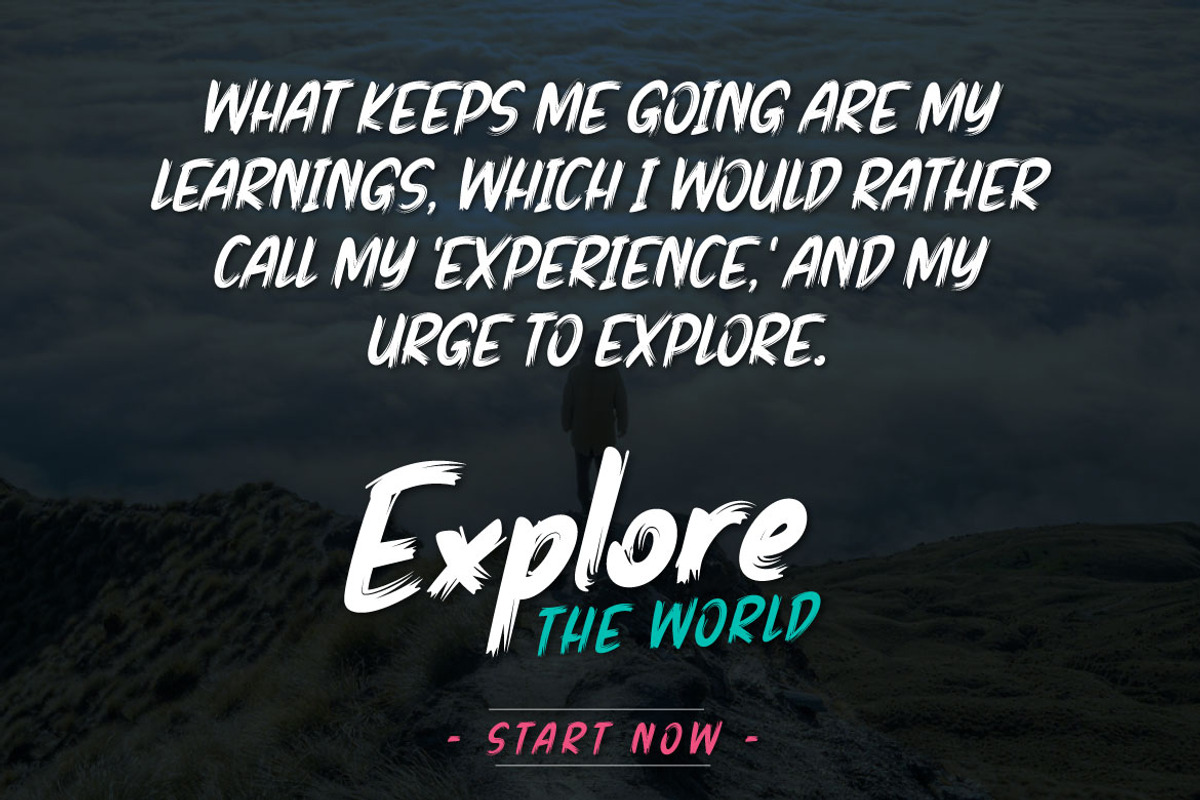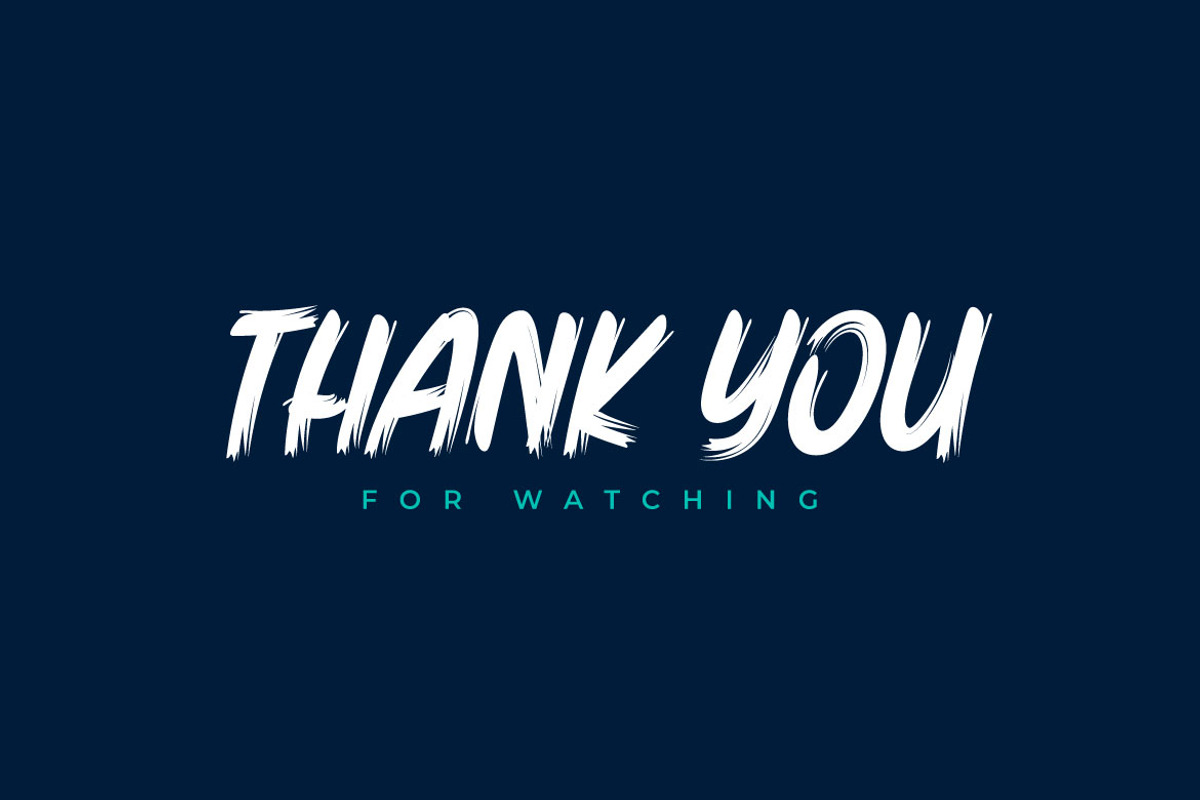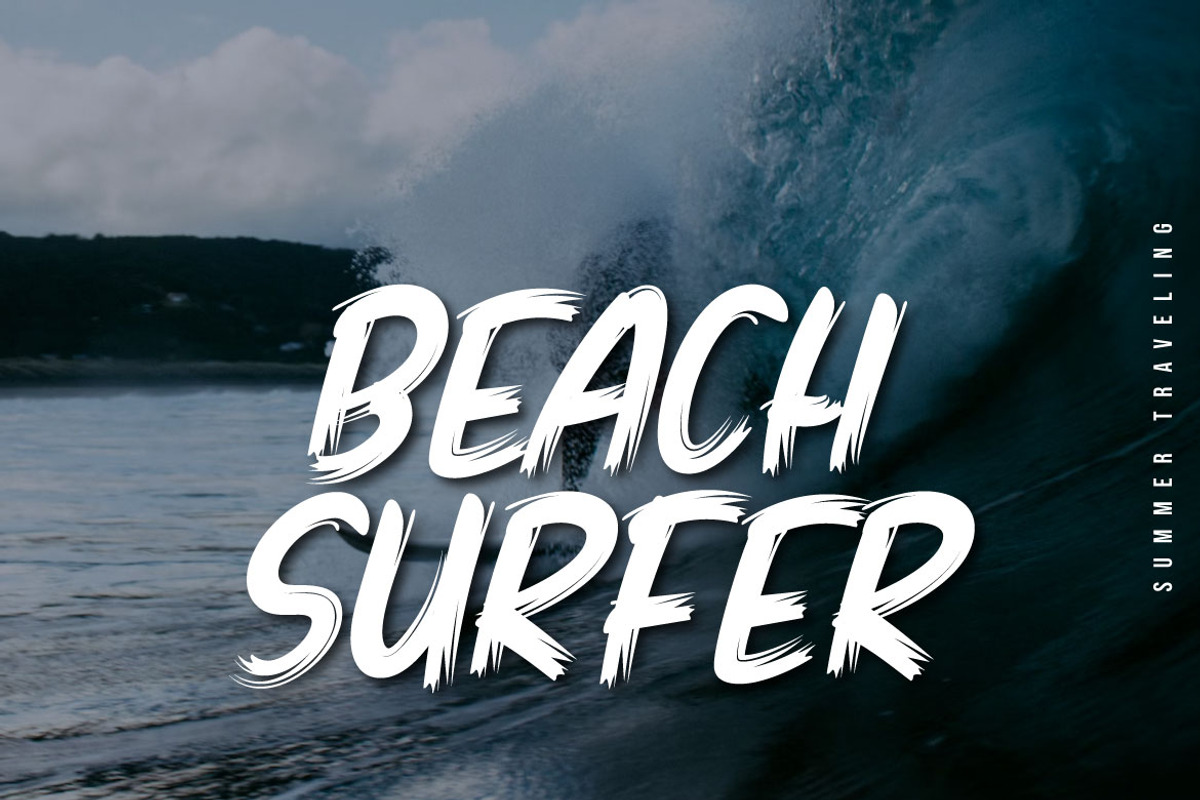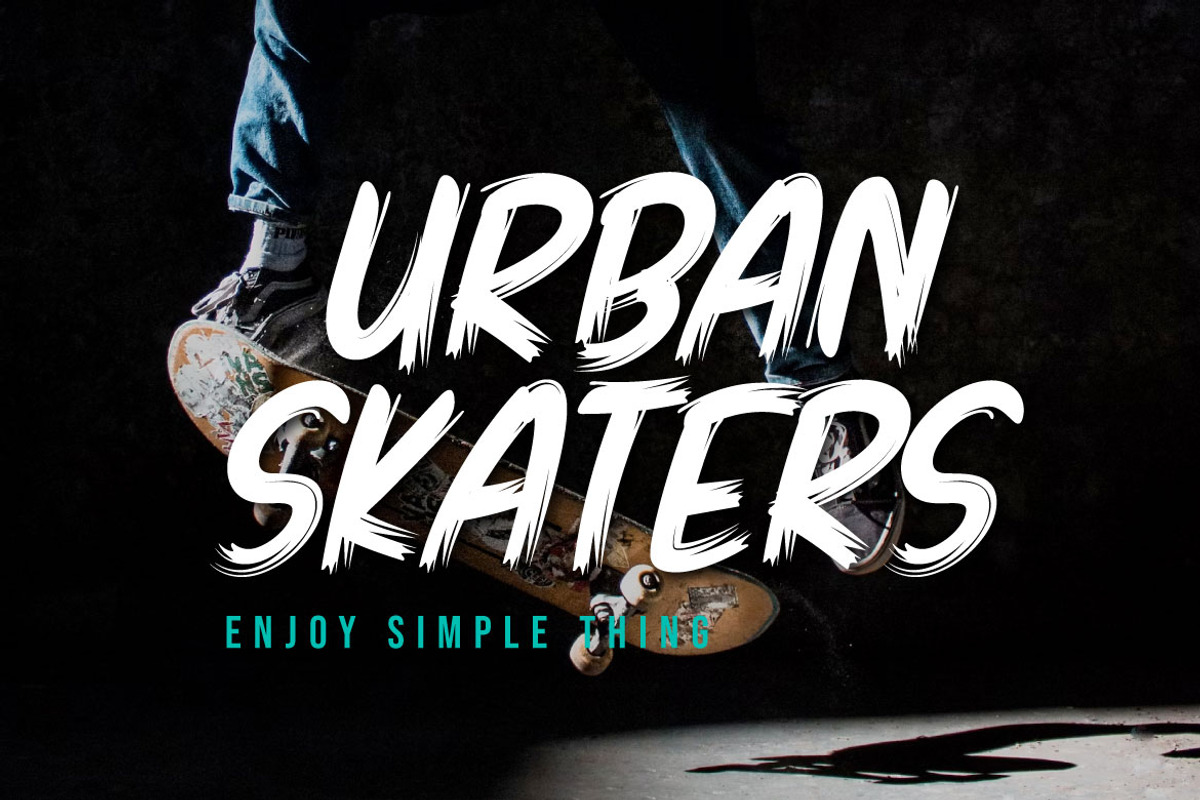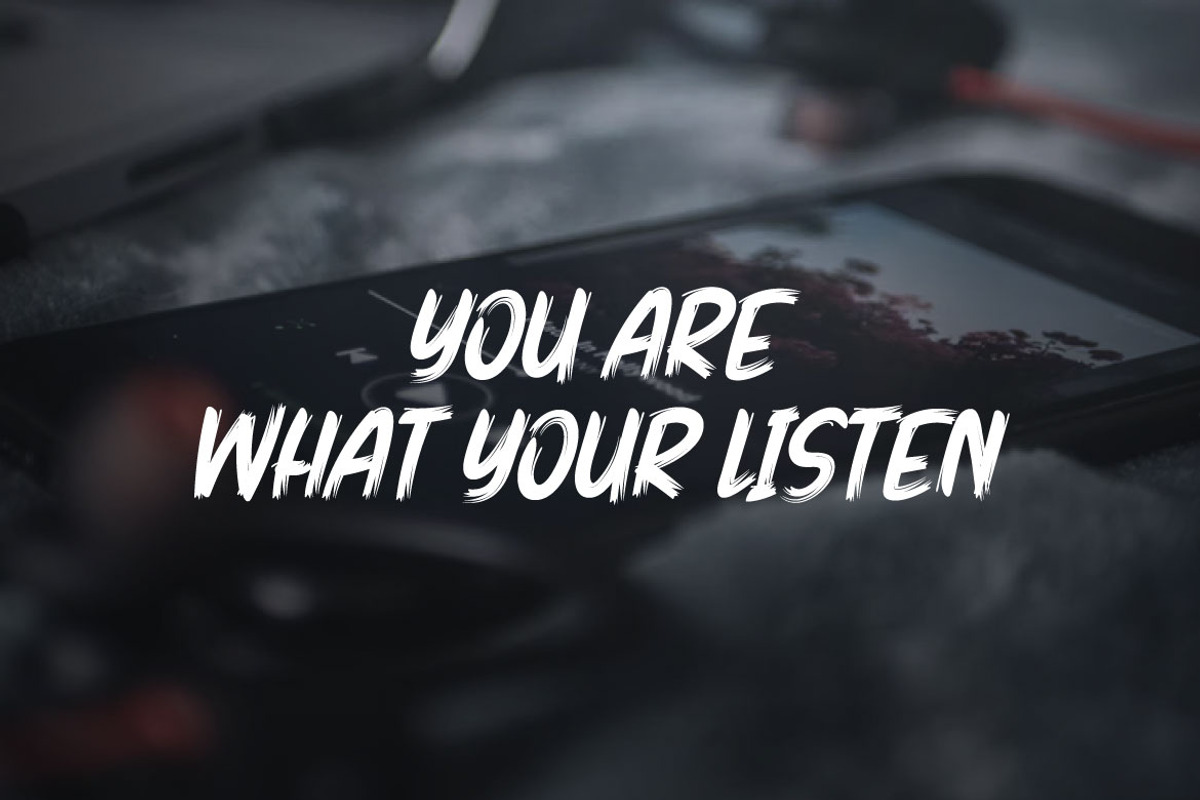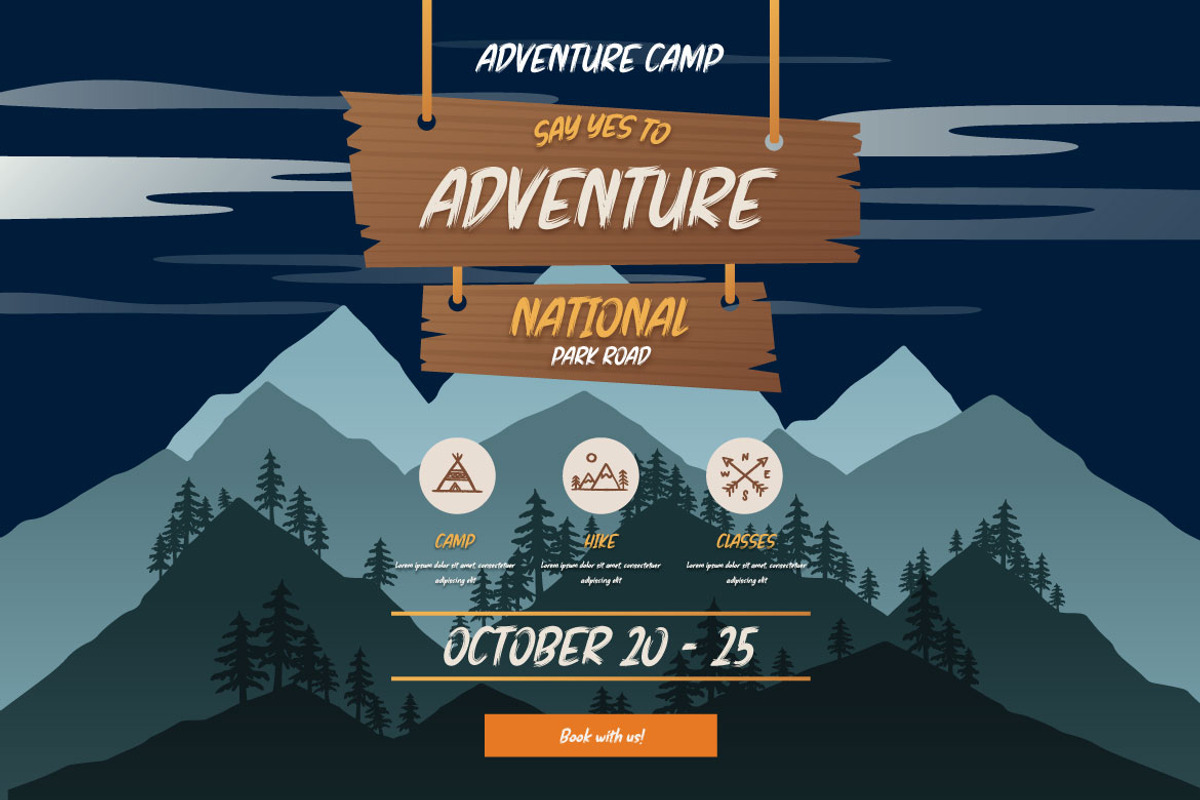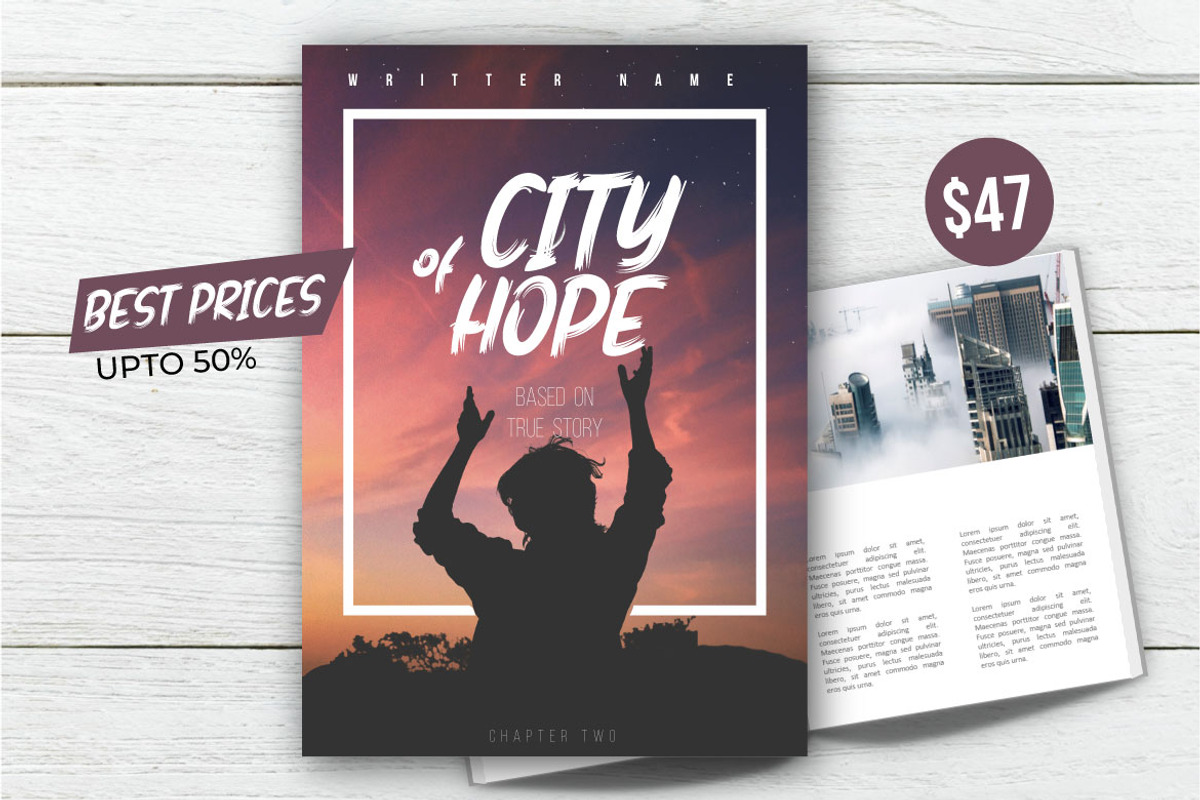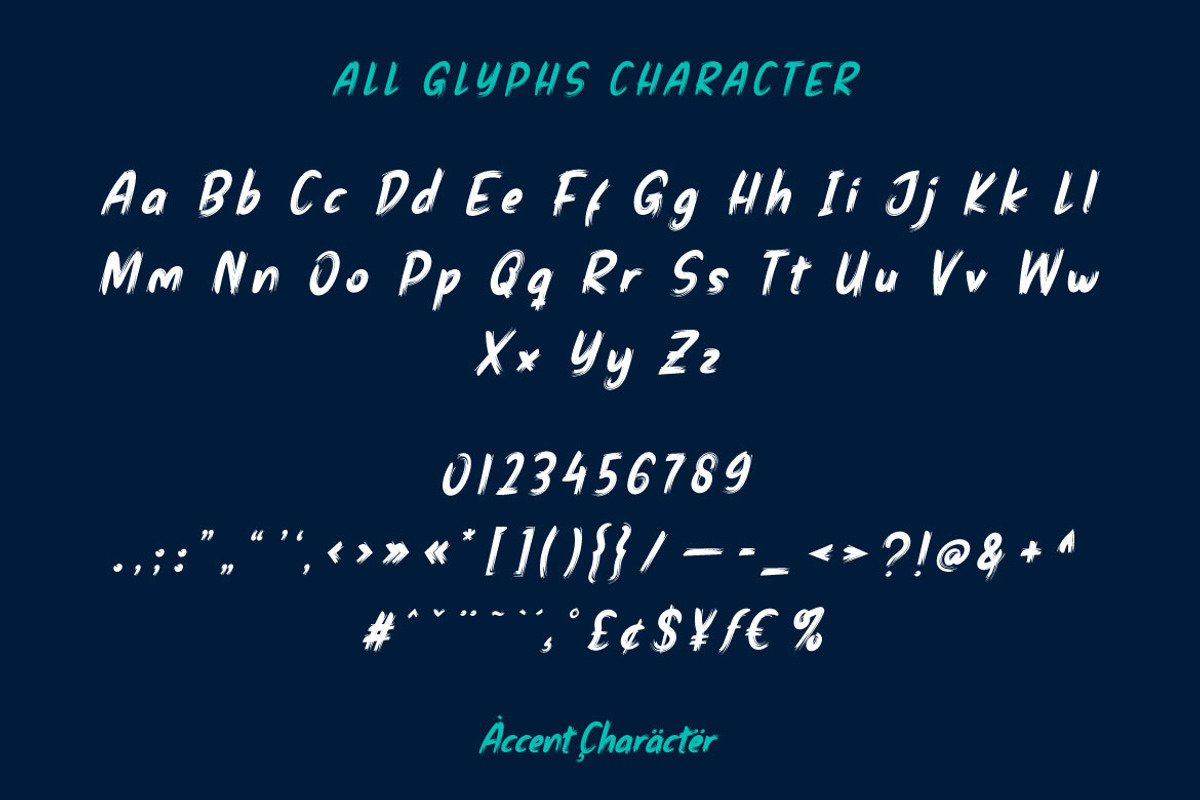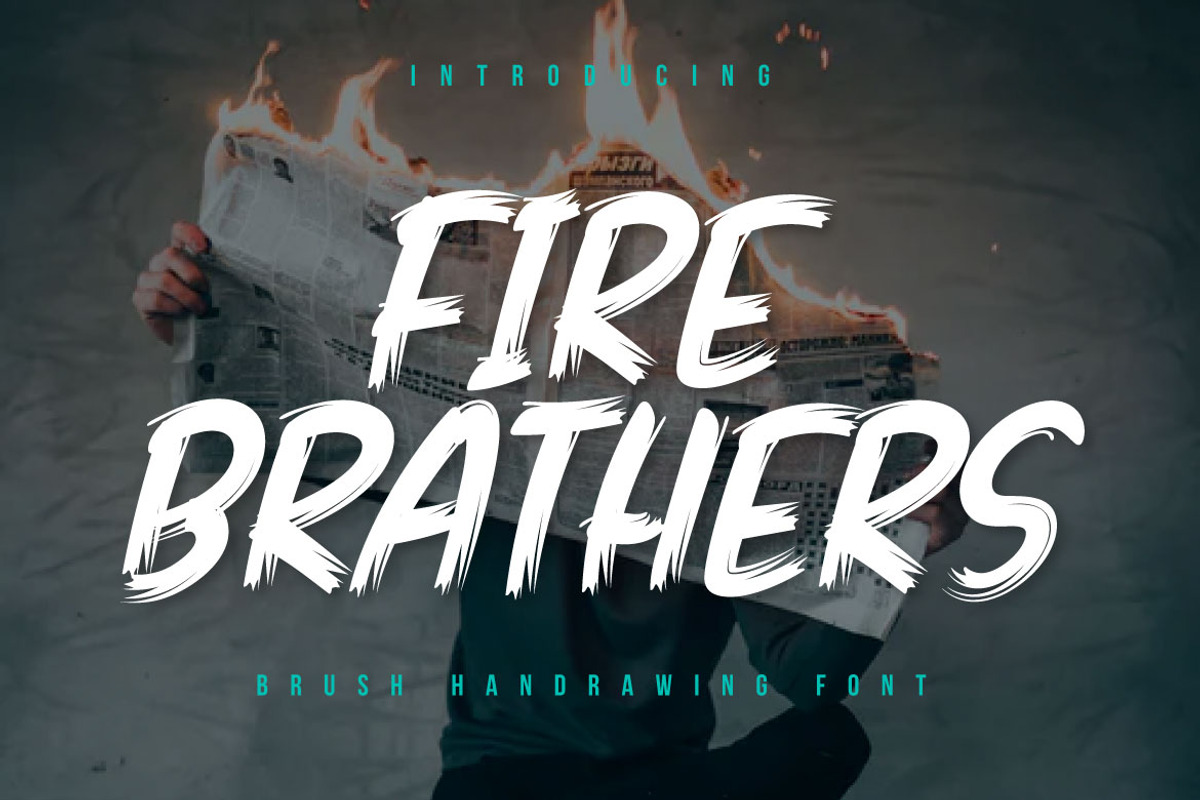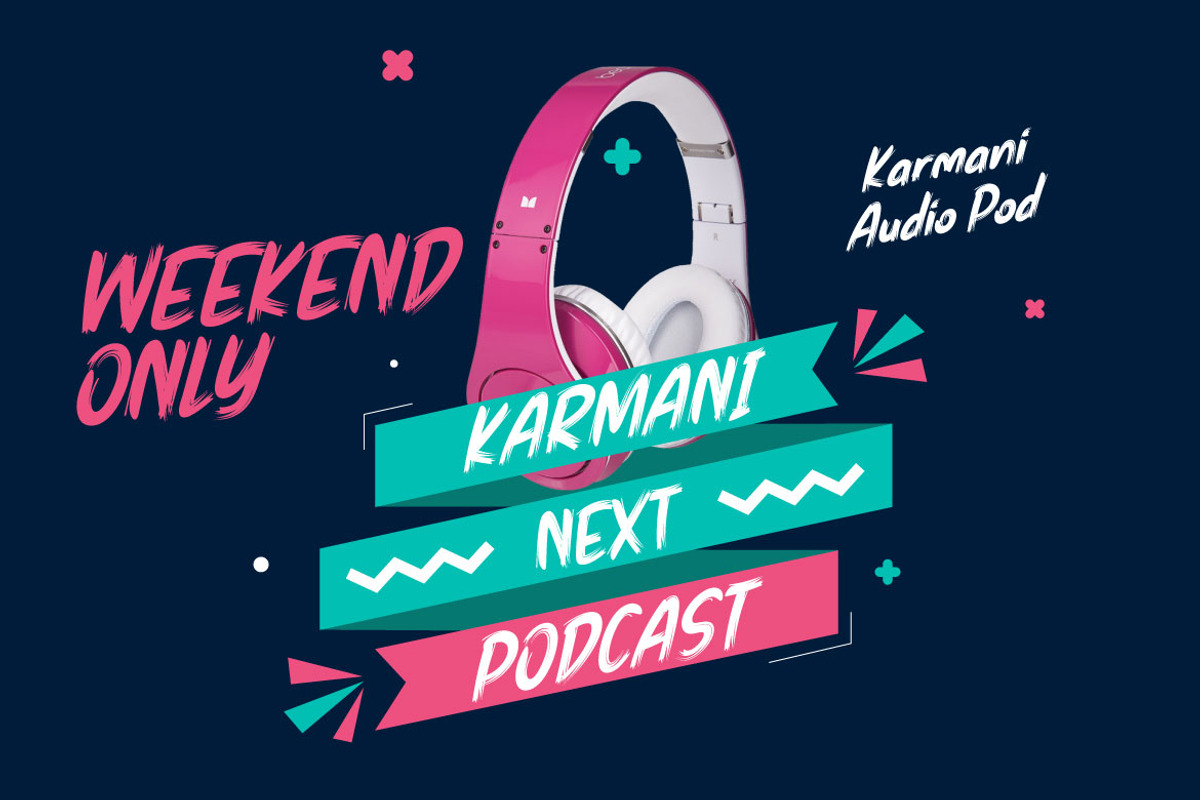
Fire Brathers - Brush Handwritten
Fire Brathers is a fiery and energetic handwritten font. With strong sways and wavering lines, this font ignites with passion and courage. Ideal for projects seeking an expressive and fiery appearance, such as merchandise designs, banners, or promotional materials for sports events.